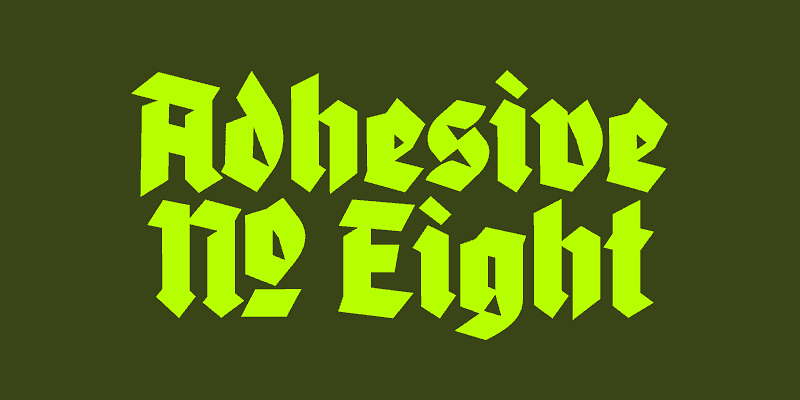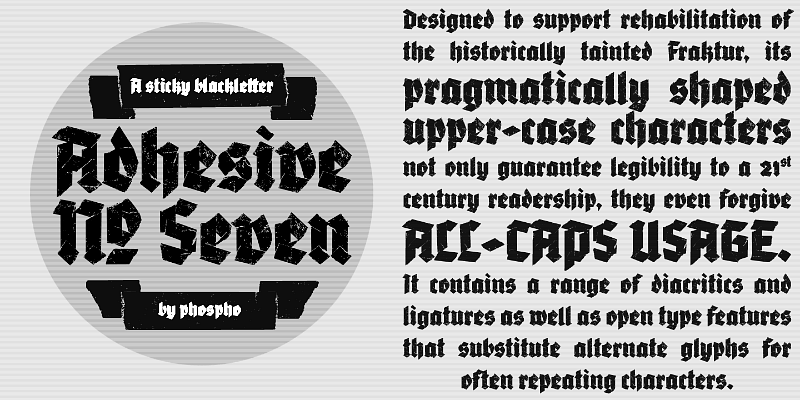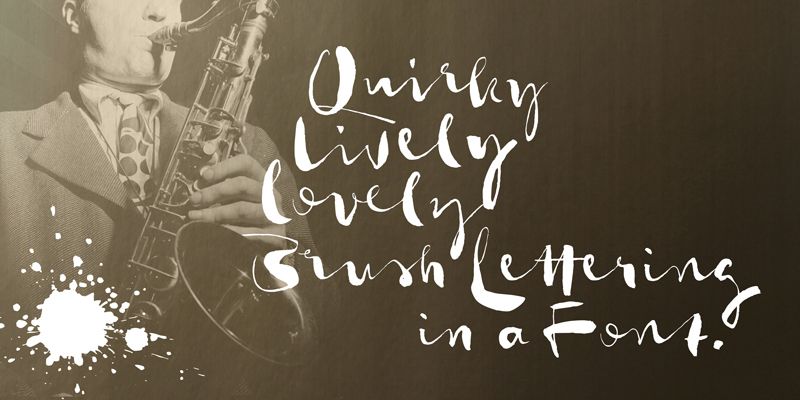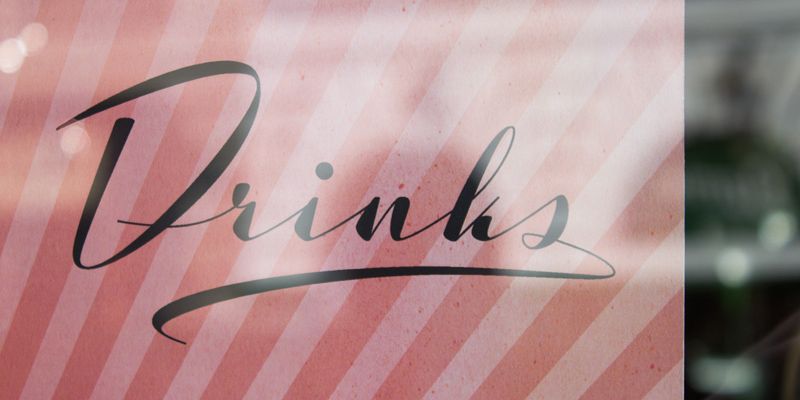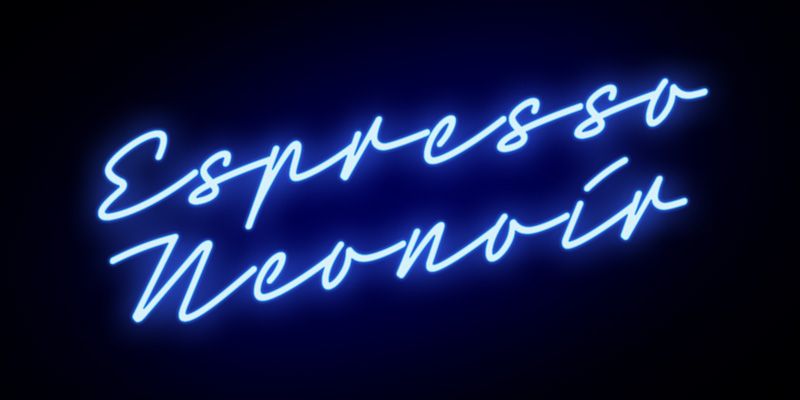
A contemporary blackletter "tapeface", based of the structure of torn adhesive tape. With its fine texture and overlap details you may best use it at poster and headline sizes.
A wild, hand-lettered typeface that pulses with the spontaneous vibrance of brush lettering. With the power of OpenType it gets real close to what you normally do with ink, brush and paper.
A timeless classic of a script typeface. With its generous spacing it radiates the spirit of hand-lettered signage of the 1950’s.
A high-class calligraphic typeface that developed from sketches for a bolder version of Luxus Brut. Each of the elegant curves is drawn in respect of their distinctive origin in mid 1900’s signage lettering.
Neonoir is an homage to neon lettering craftsmanship of the mid 20th century. The beautiful futuristic grace of wall-sized bent-glass hand-writing, distilled into one connected script typeface.